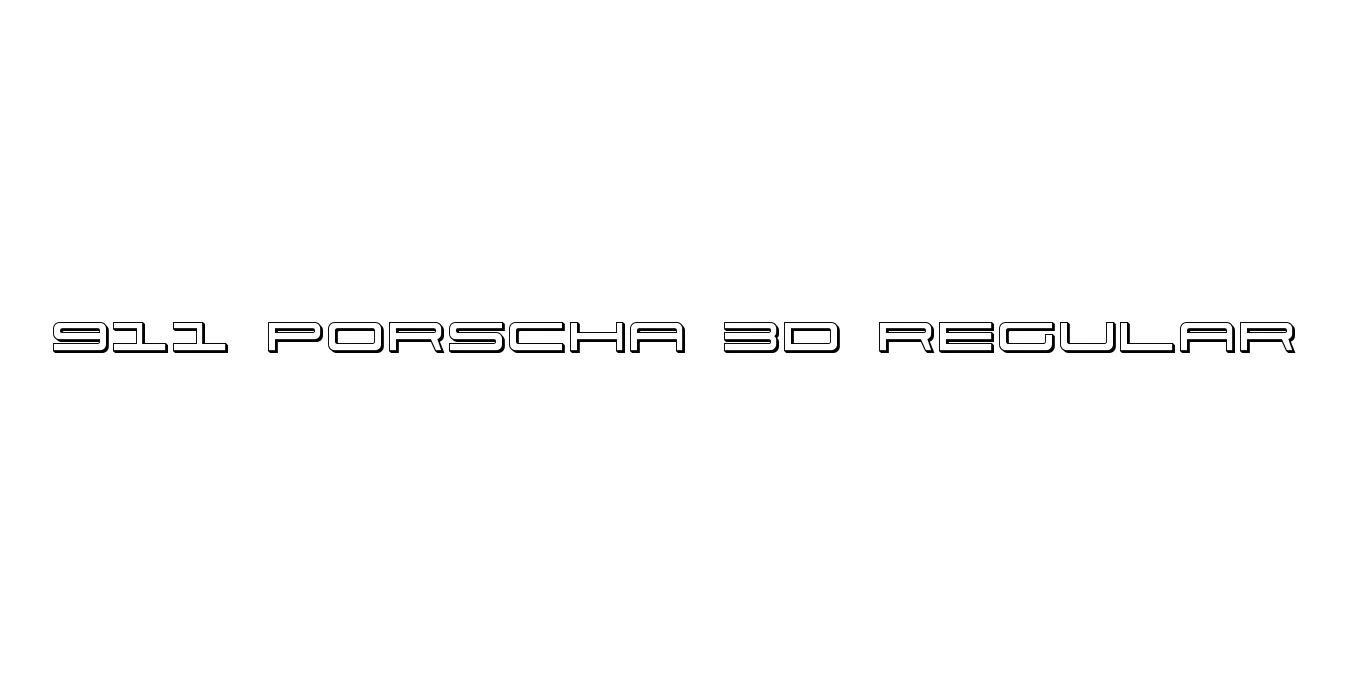
911 Porscha 3D Regular
Designed by Iconian Fonts (Dan Zadorozny)
| Font Name | 911 Porscha 3D |
| Category | Display / Techno |
| Designer | Iconian Fonts (Dan Zadorozny) |
911 Porscha 3D Regular is a specialized display typeface inspired by the legendary automotive branding of the Porsche series. Designed to capture the spirit of speed, performance, and German engineering, this font features a bold, extended profile that mirrors the sleek lines of high-end sports cars. The 3D variant specifically introduces a simulated depth and mechanical weight, making it a powerful choice for headers that require a physical presence and an industrial, high-tech aesthetic.
The architecture of the characters is defined by wide horizontal stretches and thick, angular strokes that ensure maximum visibility even at high speeds. This typeface is a staple in the automotive enthusiast community, often used to replicate the look of professional racing team logos and luxury car emblems. Its clean yet aggressive styling makes it highly effective for technological branding, science fiction themes, and any design project that needs to convey velocity and modern sophistication.
911 Porscha 3D Regular Best Uses
Ideal for car club logos, racing team identities, and custom vehicle decals.
Perfect for menu headers and HUD elements in racing simulators and sci-fi games.
Bold and striking for t-shirt designs and merchandise related to car culture.
Great for large-scale banners and posters for car shows, rallies, or tech expos.